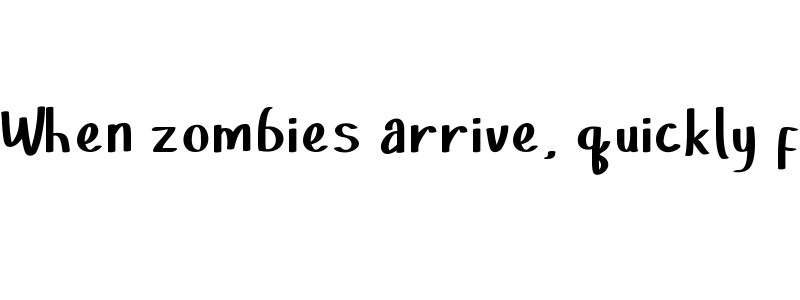
Choco & Chips
Choco & Chips is a stylish and playful font with an incredible feel. It will add a unique touch to any design project.
• each font has : stylish handwritten style, beautiful swash (ending tail), beautiful titling (beginning tail), special ligatures, multilingual support